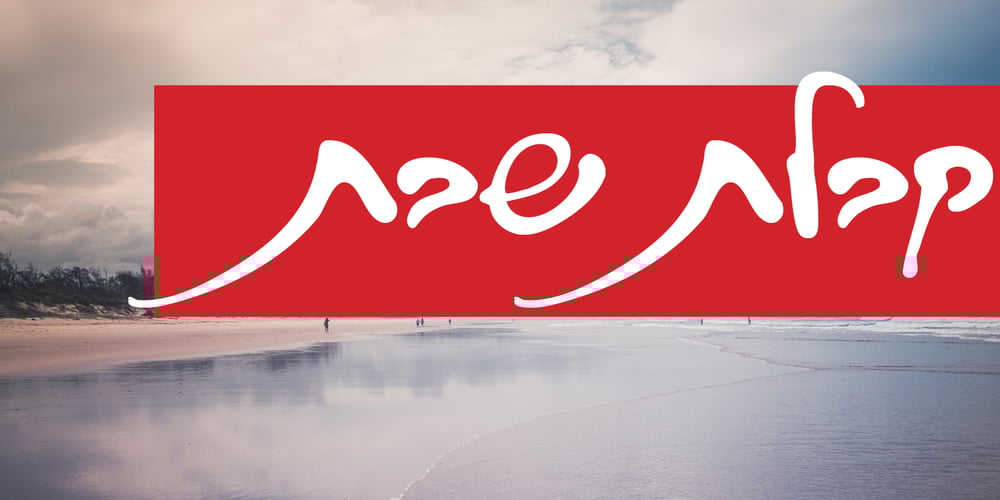
Hazilim MF Font Family was designed by Eddi Goldfein and published by Masterfont. Hazilim MF contains 1 styles and family package options. Hazilim is a vivid choice when you want to effortlessly make your designs stand out with a remarkable wild crafted handwriting.